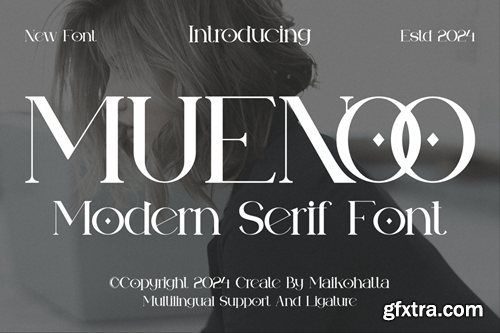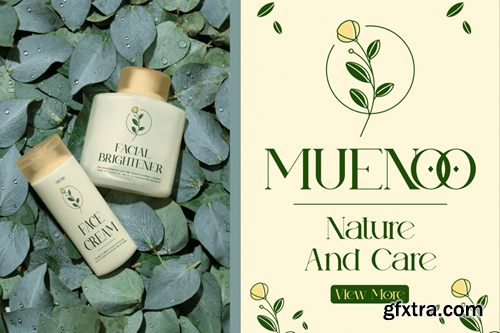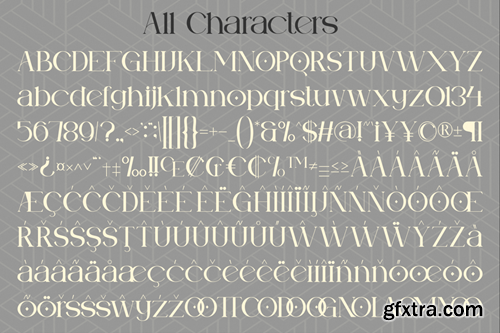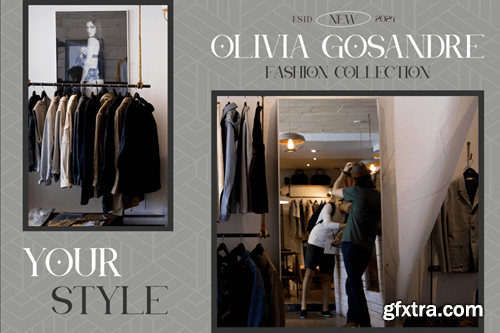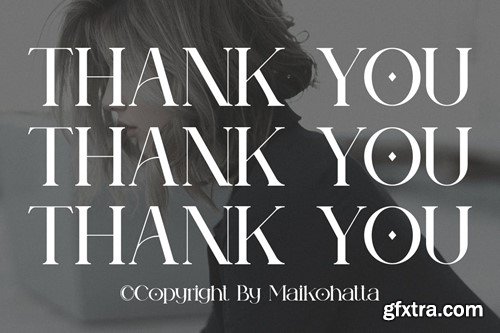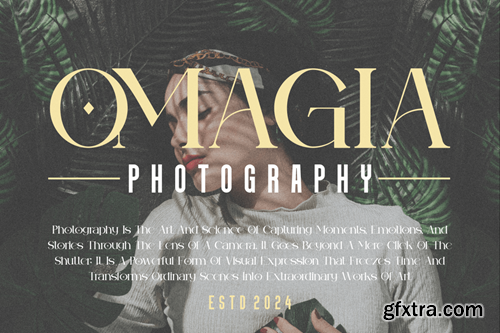
Muenoo - 现代衬线字体 Q9FD5RW
Muenoo -Modern Serif Font
Introducing our new product Muenoo Modern Serif Font This font features a balanced proportion of stroke thickness and fineness, creating attractive and easy-to-read visuals. This modern serif style is often characterized by a bold distinction between thick and thin lines, providing a touch that is understated but still stands out. available